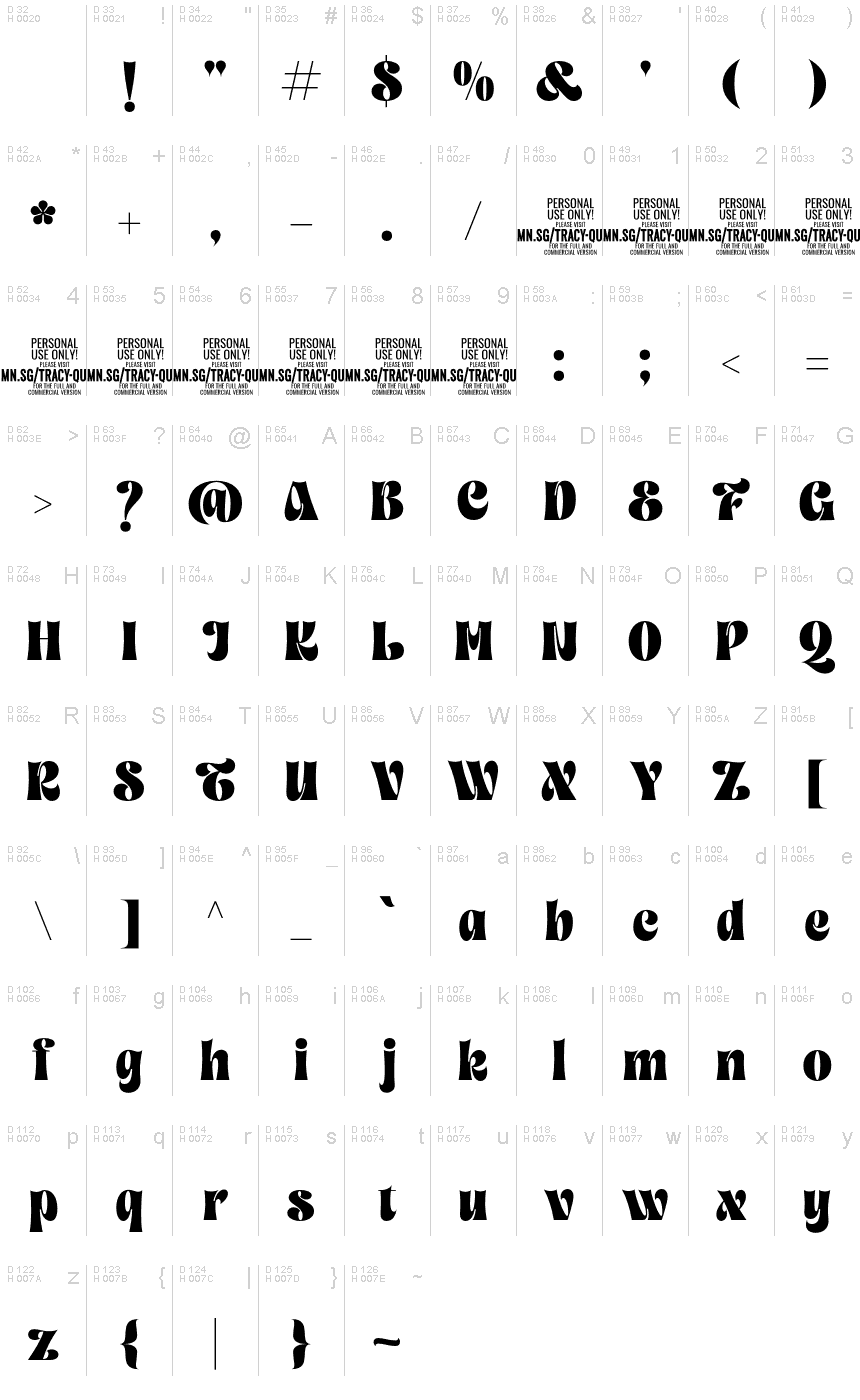
Tracy Queen PERSONAL USE ONLY Regular
Introducing Tracy Queen, a groovy and bold display font designed by Mans Greback. Perfect for creating a funky and vibrant atmosphere, Tracy Queen is ideal for modern logos, street posters, apparel designs and other creative projects.